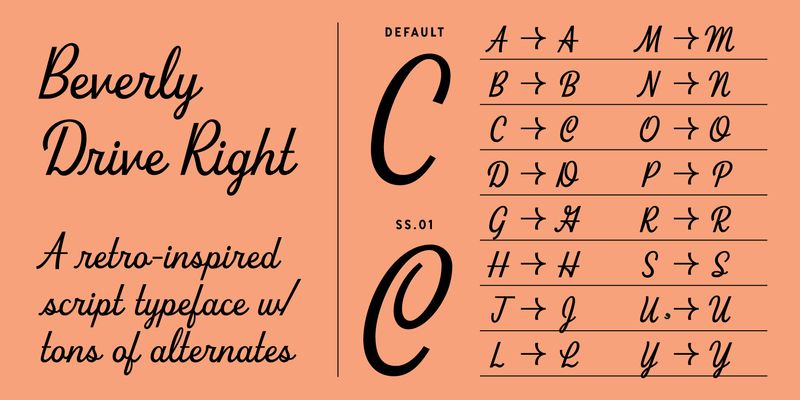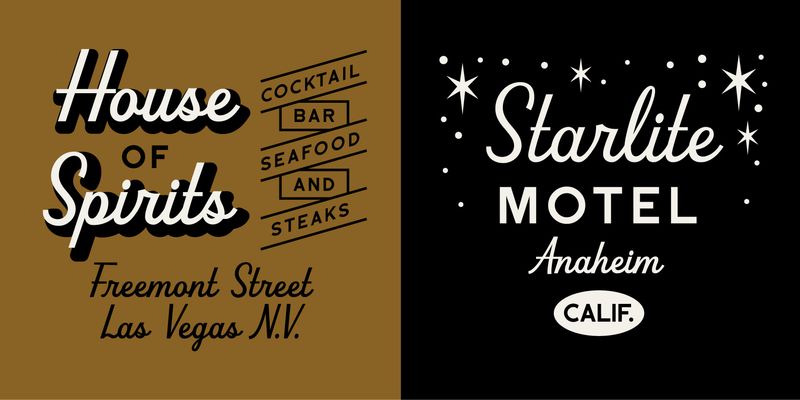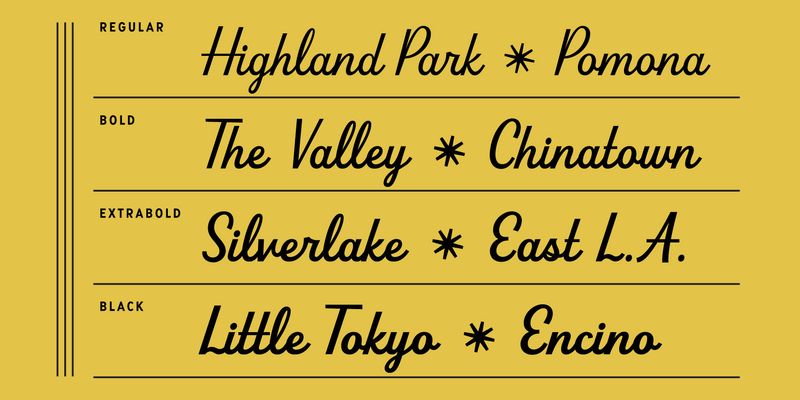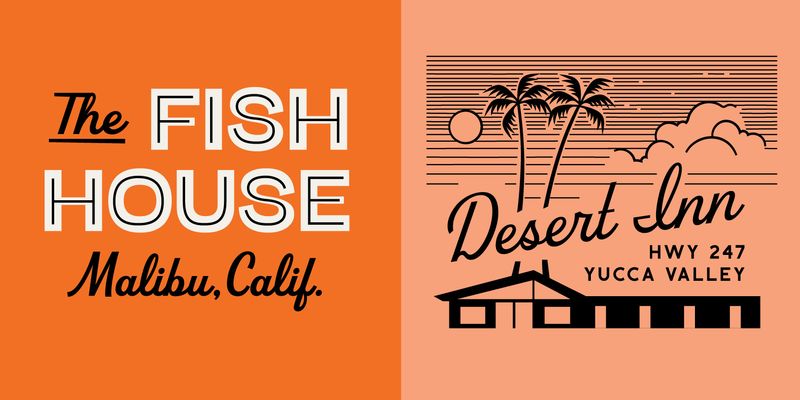
Beverly Drive Right is a retro script font with a low x-height, exaggerated cap height, and 2 unique style sets to suit any occasion. Use the default style set for more casual applications like restaurant menus or beer labels, and the fancier style set 01 for wedding invites or holiday graphics. Includes fun extras like smiley faces, “rd” “th” “st” superscript ligatures, and tons of contextual alternates.
Hoodzpah
Hoodzpah is a Southern California based brand identity and type design studio founded by Amy and Jennifer Hood. Specializing in personality-driven display typefaces, Hoodzpah has never been accused of being minimal.